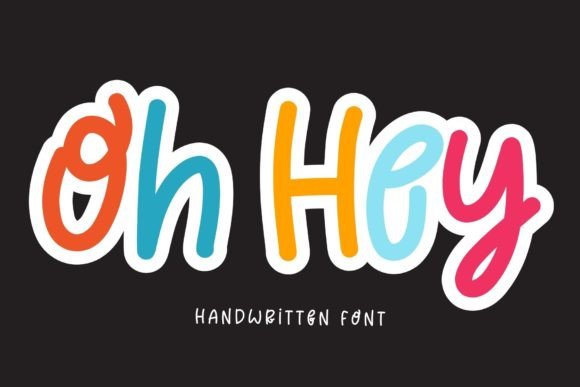
Behold, the Oh Hey Font – a captivating script font that dances across the digital canvas, leaving a trail of playfulness and authenticity in its wake. Its every curve and swirl radiates an infectious energy, inviting you to embark on a creative adventure like no other.
With Oh Hey Font, transform your designs into vibrant expressions of individuality. Let your blog posts come alive with a touch of whimsy, or craft logos that exude a sense of genuine connection. Elevate your branding with a font that reflects your unique spirit, and design ads that capture attention with their playful charm.
Oh Hey Font is the perfect companion for crafting invitations that spark joy, greeting cards that warm hearts, and planners that inspire creativity. Its enchanting characters lend a personal touch to photo albums, adding a layer of cherished memories. Use it to create decorations that ignite imaginations, and let your designs become a testament to your creativity.
Whether you're a seasoned designer or just starting your creative journey, Oh Hey Font is your gateway to a world of endless possibilities. Its versatility knows no bounds, making it the perfect choice for a myriad of projects. Unleash your artistic vision and let Oh Hey Font guide you towards design brilliance.
Embrace the Oh Hey Font today, and unlock a world of creative wonders. Let its playful spirit infuse your designs with a touch of magic, and watch as your projects blossom into captivating masterpieces.